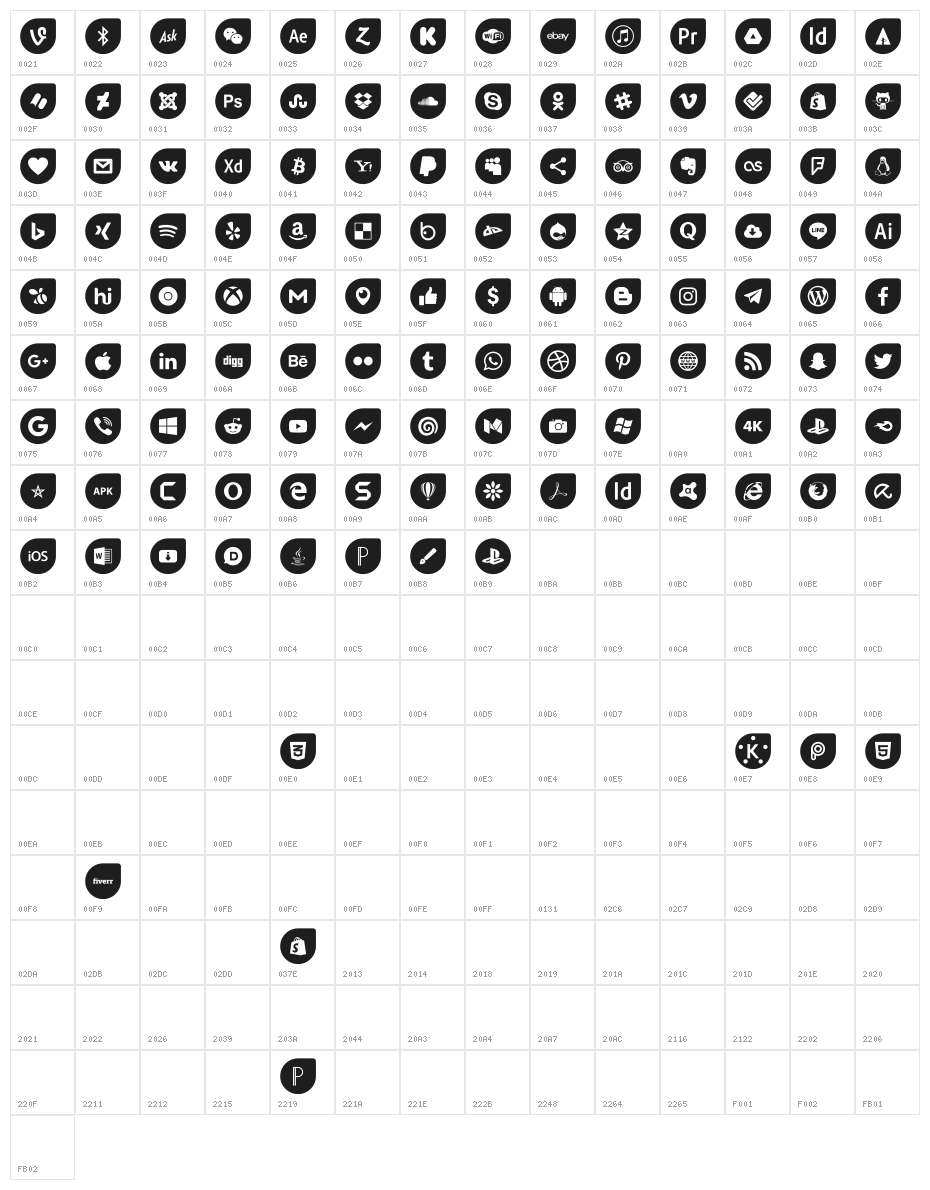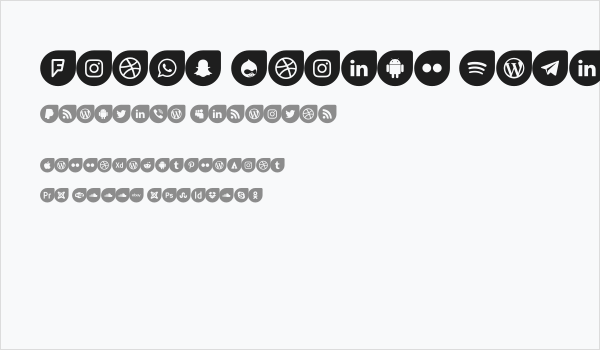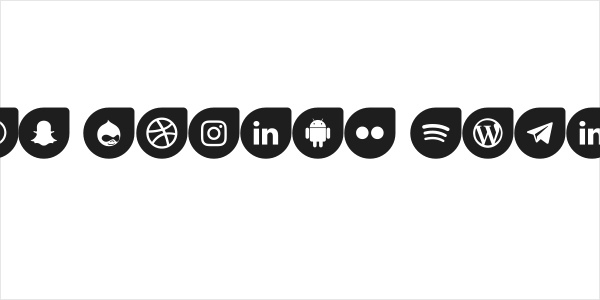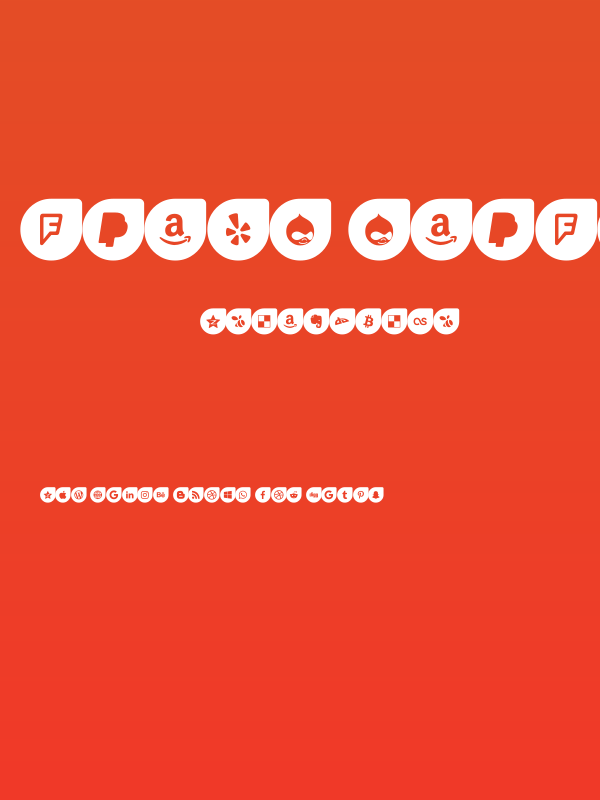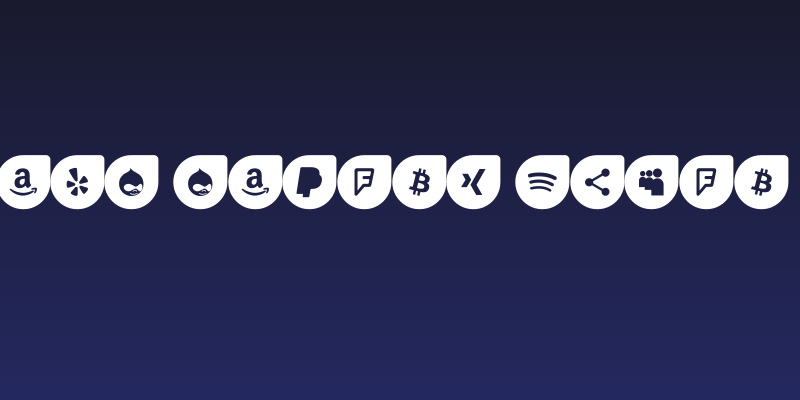
Icons Social Media 12 Font
Icons Social Media 12 Description
A set of solid black social media and technology icons enclosed in rounded square or teardrop-shaped containers, featuring simplified white logos of popular platforms and services.
| Overall Style | Modern, Minimalistic |
| Use Case | Icons for social media links, buttons, and branding elements. |
| Proposed Projects | Use in websites, apps, social media links, digital marketing materials, and user interface designs. |